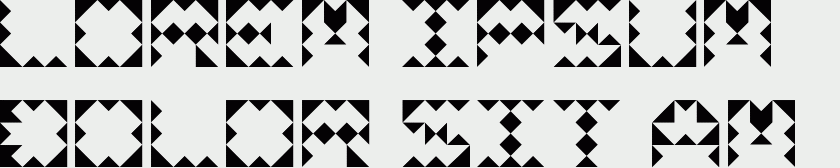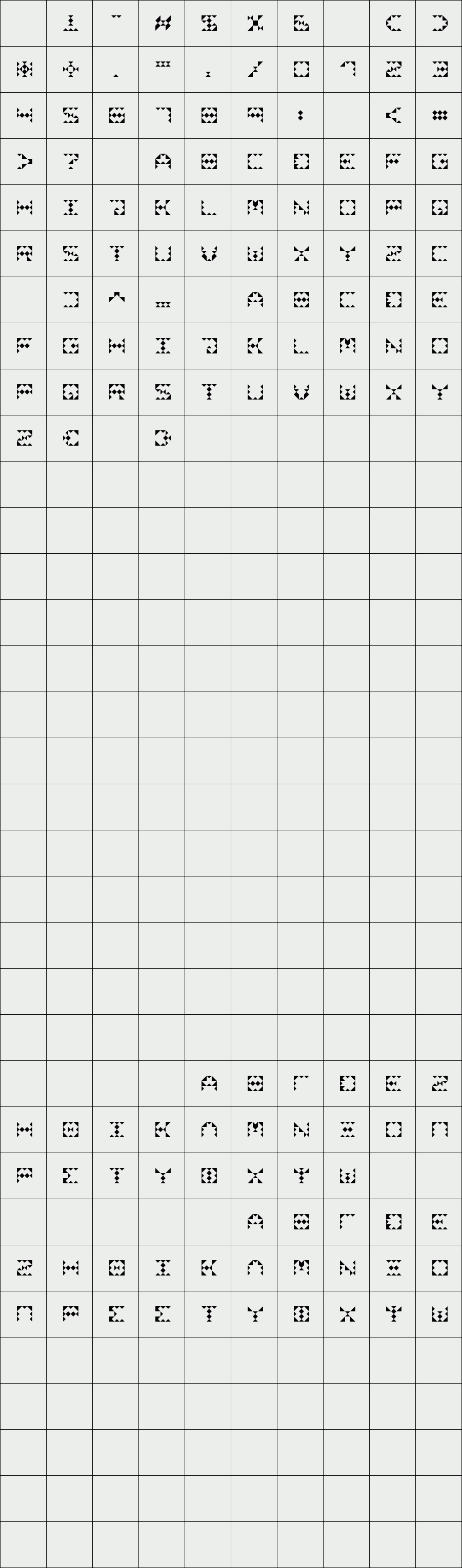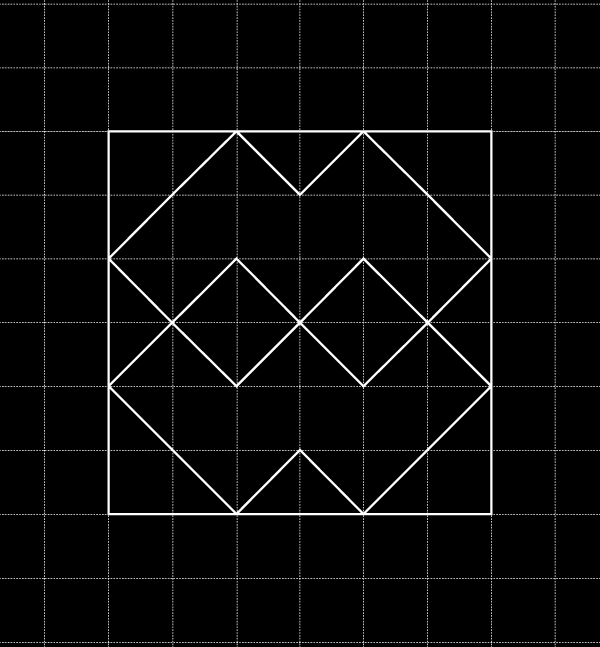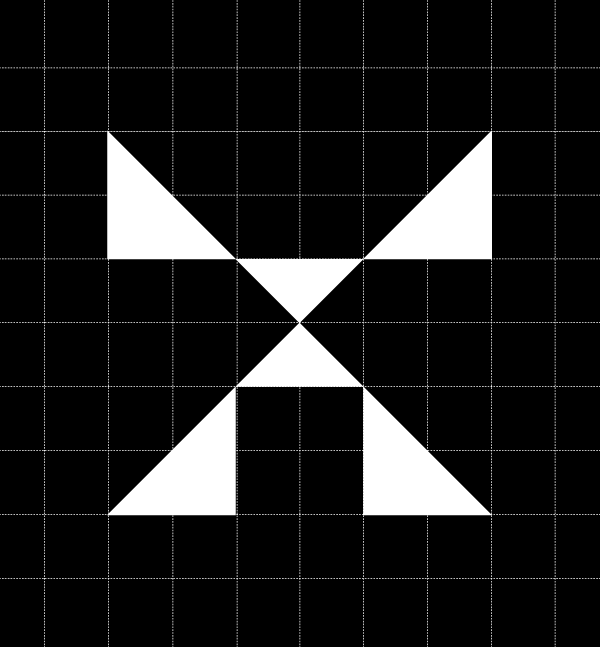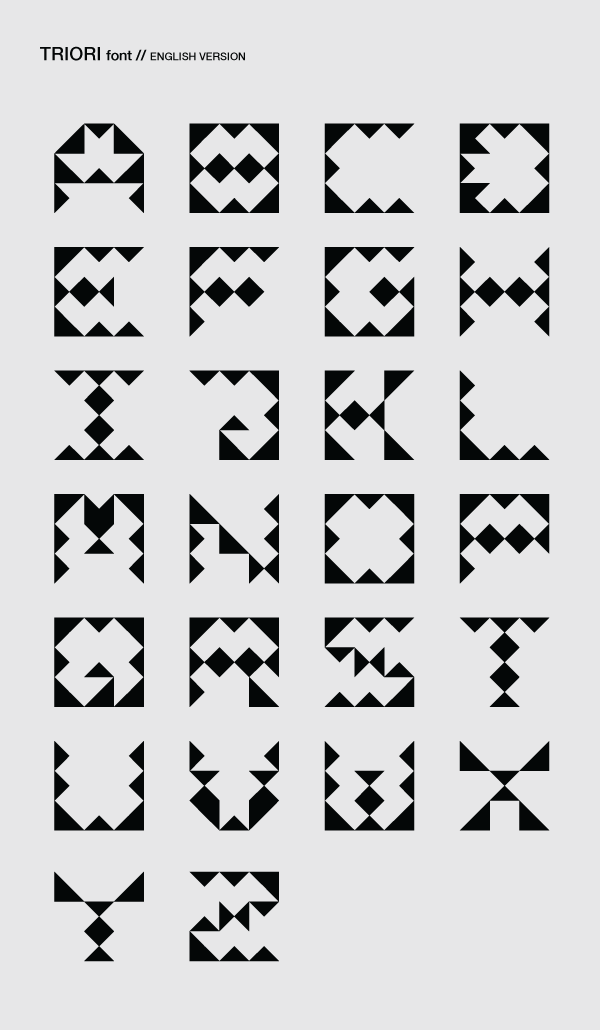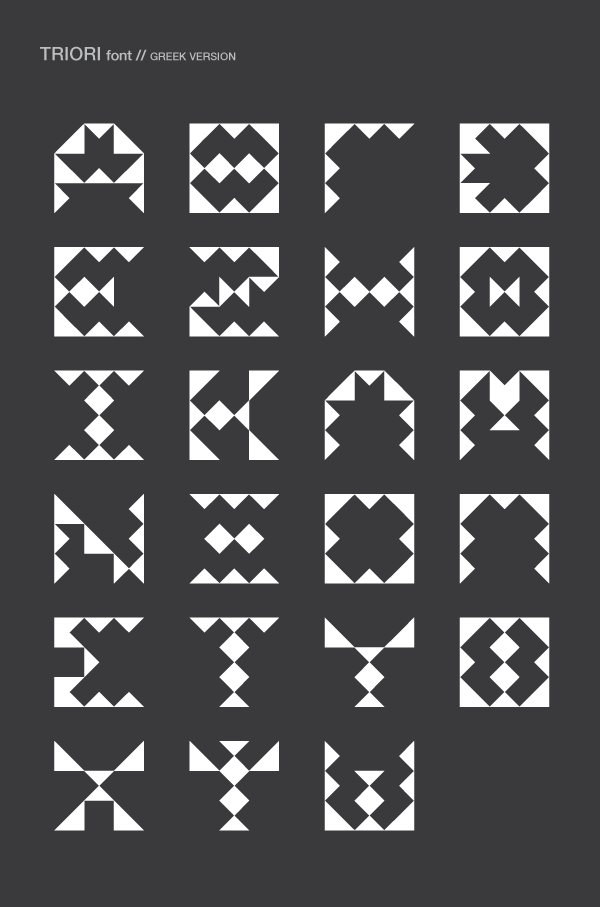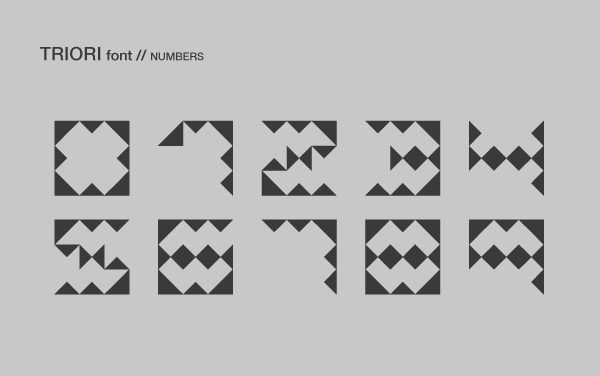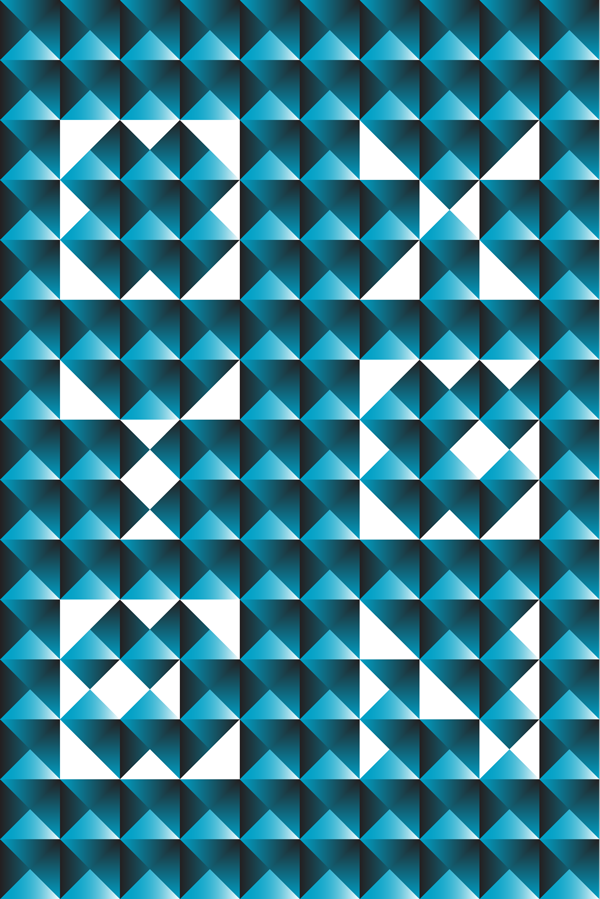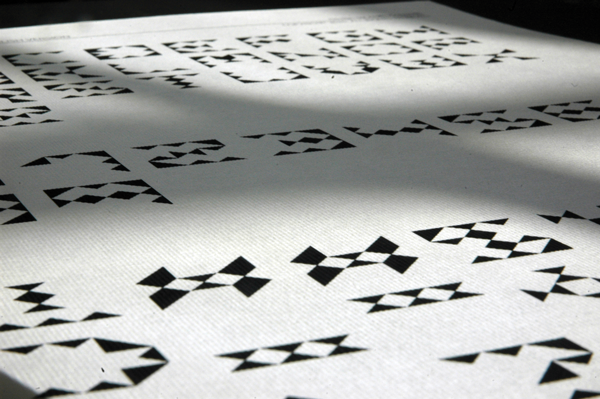
Triori
Triori Font is a project inspired from Origami technique. It is an experimental font which usually can be used in titles. The name Triori is the combination of the three first letters of the word triangle and origami. It was designed for the upper English and Greek characters.
Designer: Vasgrav